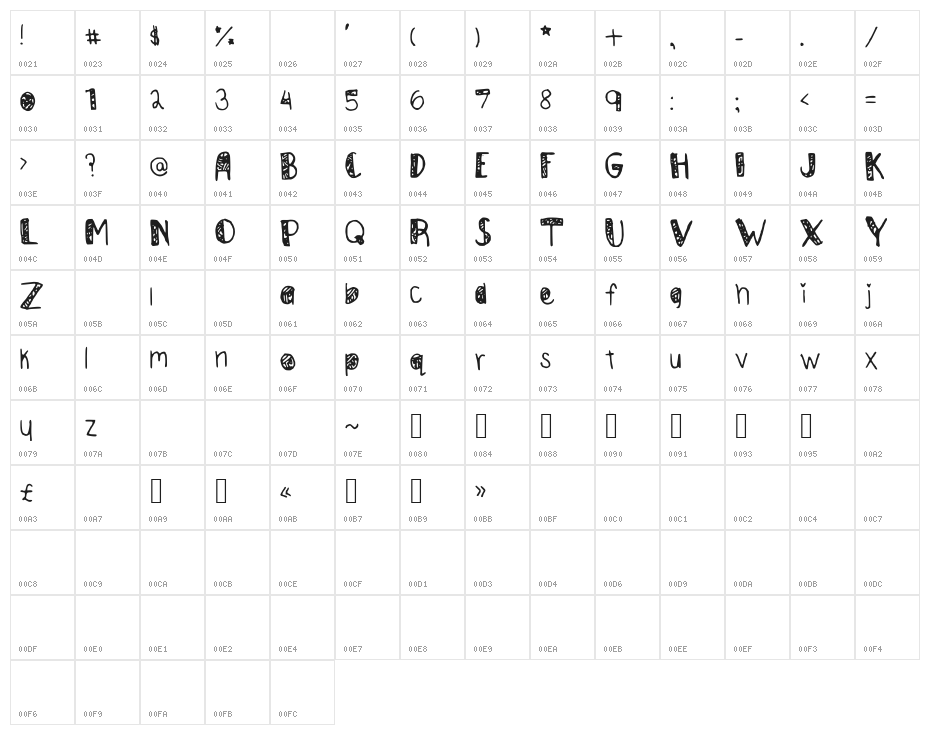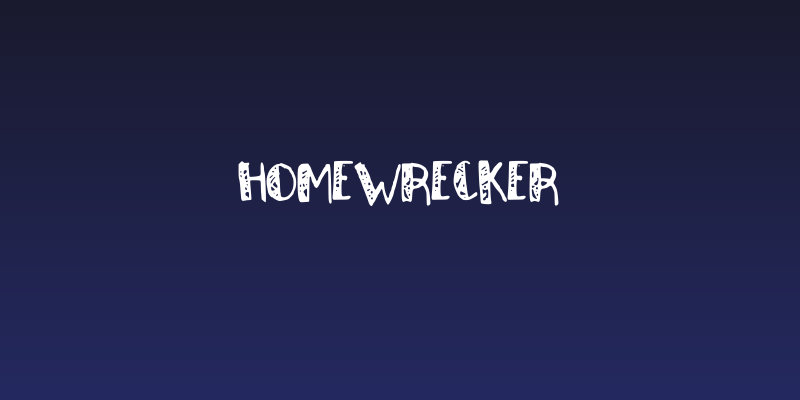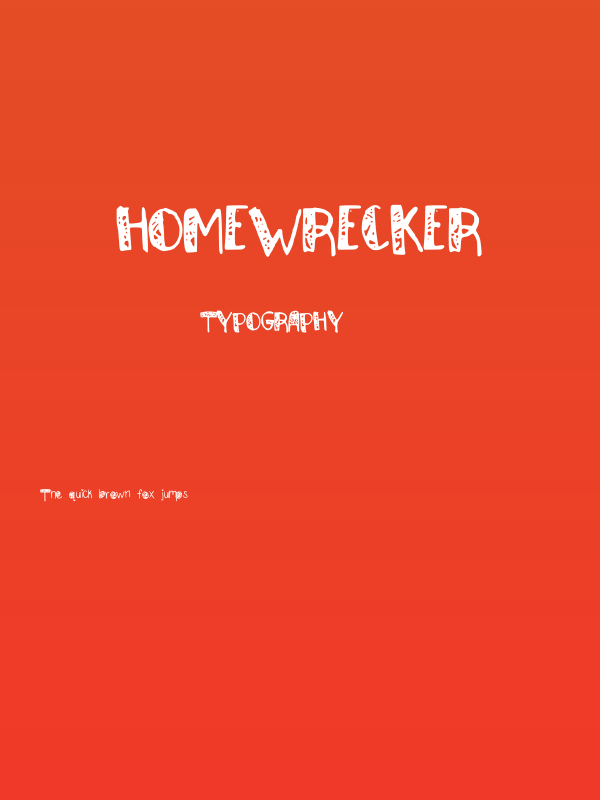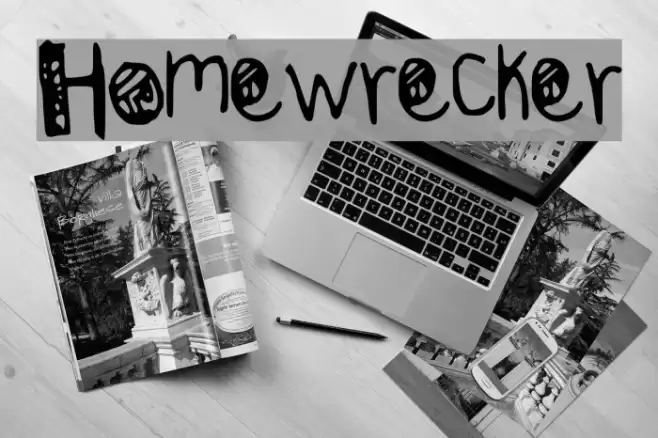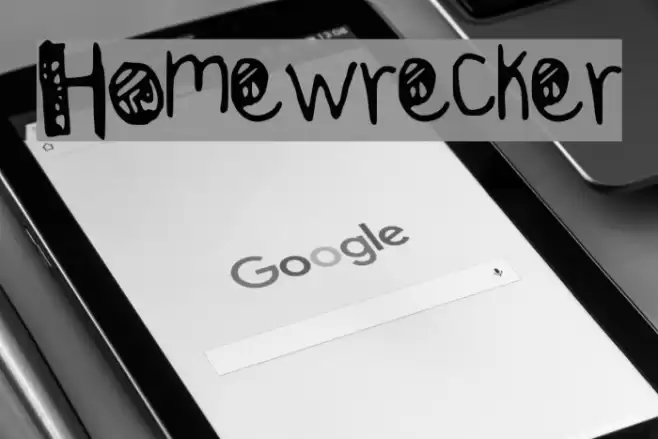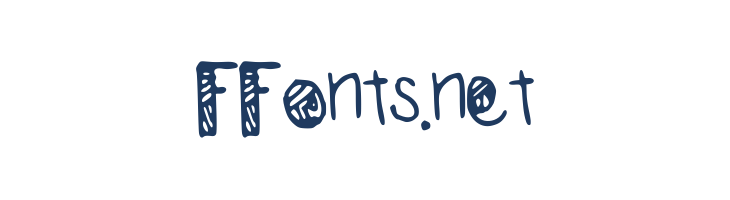
Homewrecker Font
Homewrecker Description
This font features a playful and quirky design with a hand-drawn aesthetic. The uppercase letters are bold and filled with intricate patterns, giving them a decorative appearance. The lowercase letters maintain a whimsical style, with some characters featuring unique embellishments. Numbers and special characters follow the same artistic theme, adding a sense of fun and creativity. The overall look is informal and artistic, making it suitable for projects that require a touch of personality and flair.
| Overall Style | Whimsical, Artistic, Playful |
| Use Case | Headlines, Posters, Creative Projects |
| Proposed Projects | Ideal for children's books, creative posters, playful branding, and artistic invitations. |